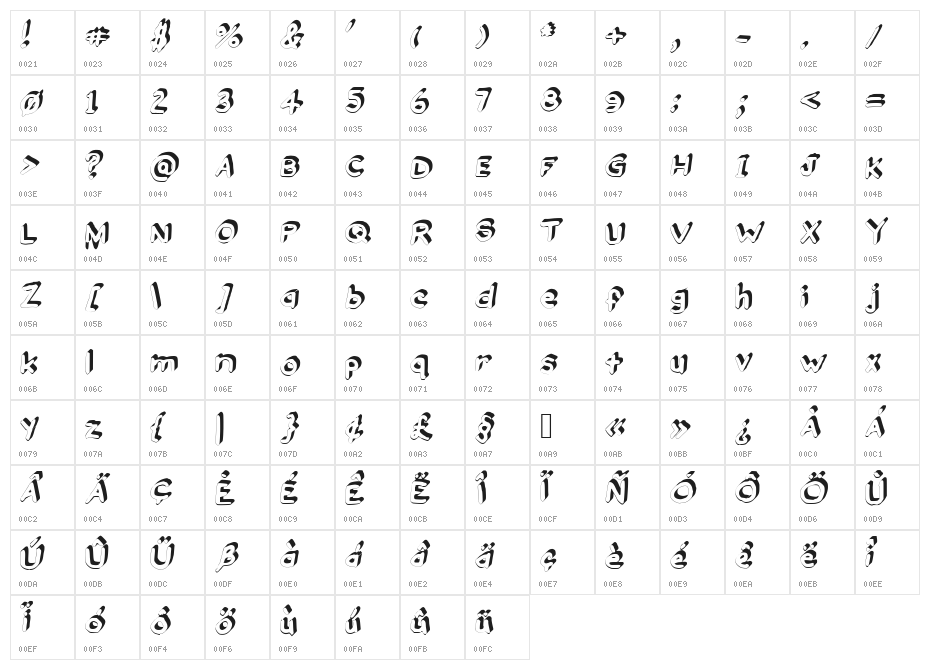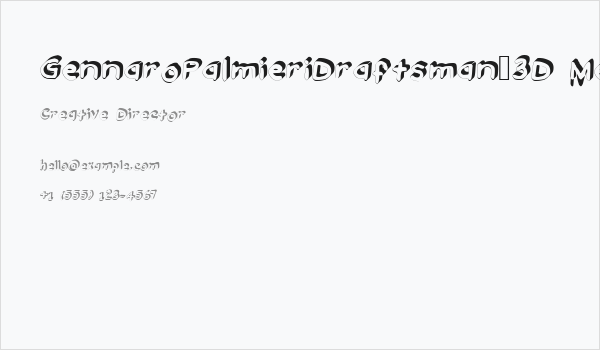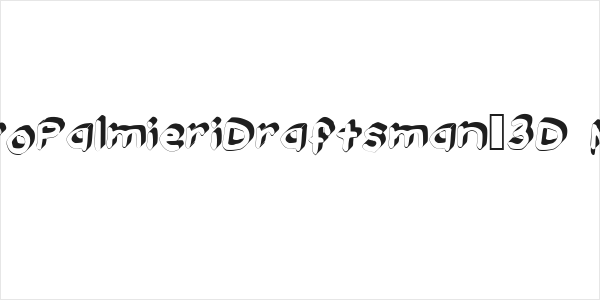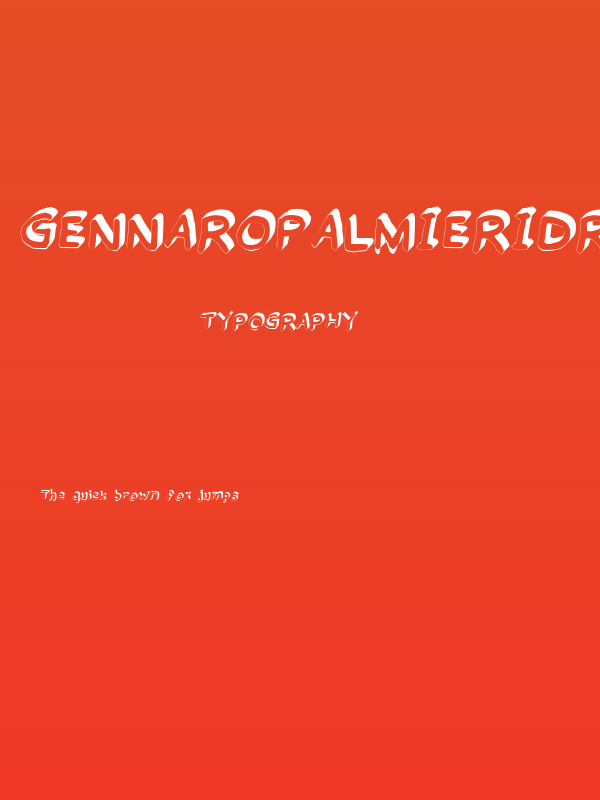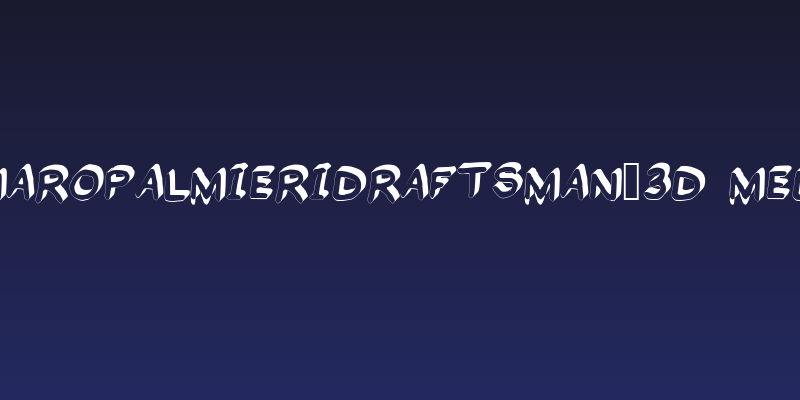
GennaroPalmieriDraftsman_3D Medium Font
GennaroPalmieriDraftsman_3D Medium Description
This font features a bold, three-dimensional style with a playful and dynamic appearance. The letters are characterized by a thick, shadowed outline that gives them a sense of depth and movement. The uppercase and lowercase letters maintain a consistent style, with rounded edges and a slightly condensed form. The numerals and special characters follow the same design principles, ensuring uniformity across all glyphs. The font's unique 3D effect makes it stand out, making it suitable for eye-catching designs. Its boldness and distinct style make it ideal for projects that require a strong visual impact.